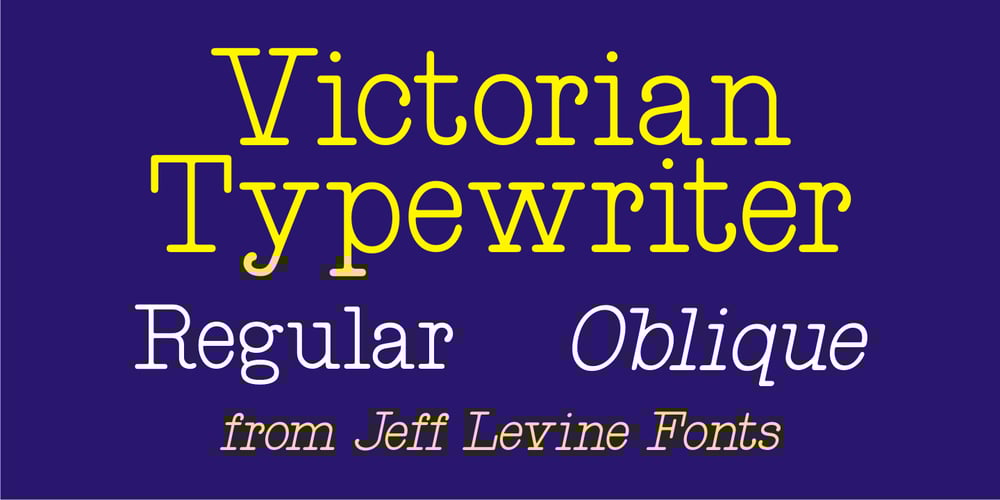
Victorian Typewriter JNL Font Family was designed by Jeff Levine and published by Jeff Levine. Victorian Typewriter JNL contains 2 styles and family package options. The titles in various sections of an 1890 catalog for stencil manufacturing supplies were set in metal type that closely resembled the lettering found on a typewriter. These examples became the basis for Victorian Typewriter JNL, which is available in both regular and oblique versions.